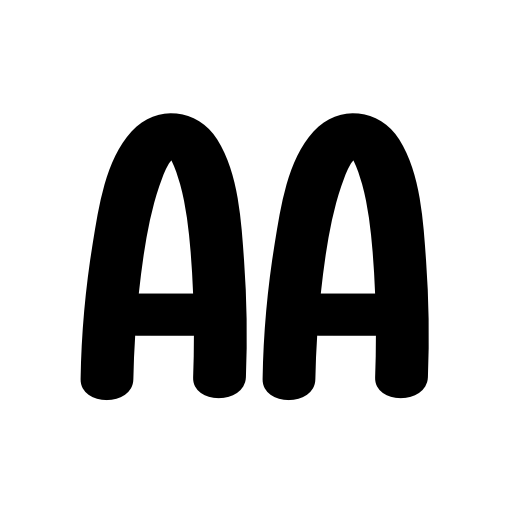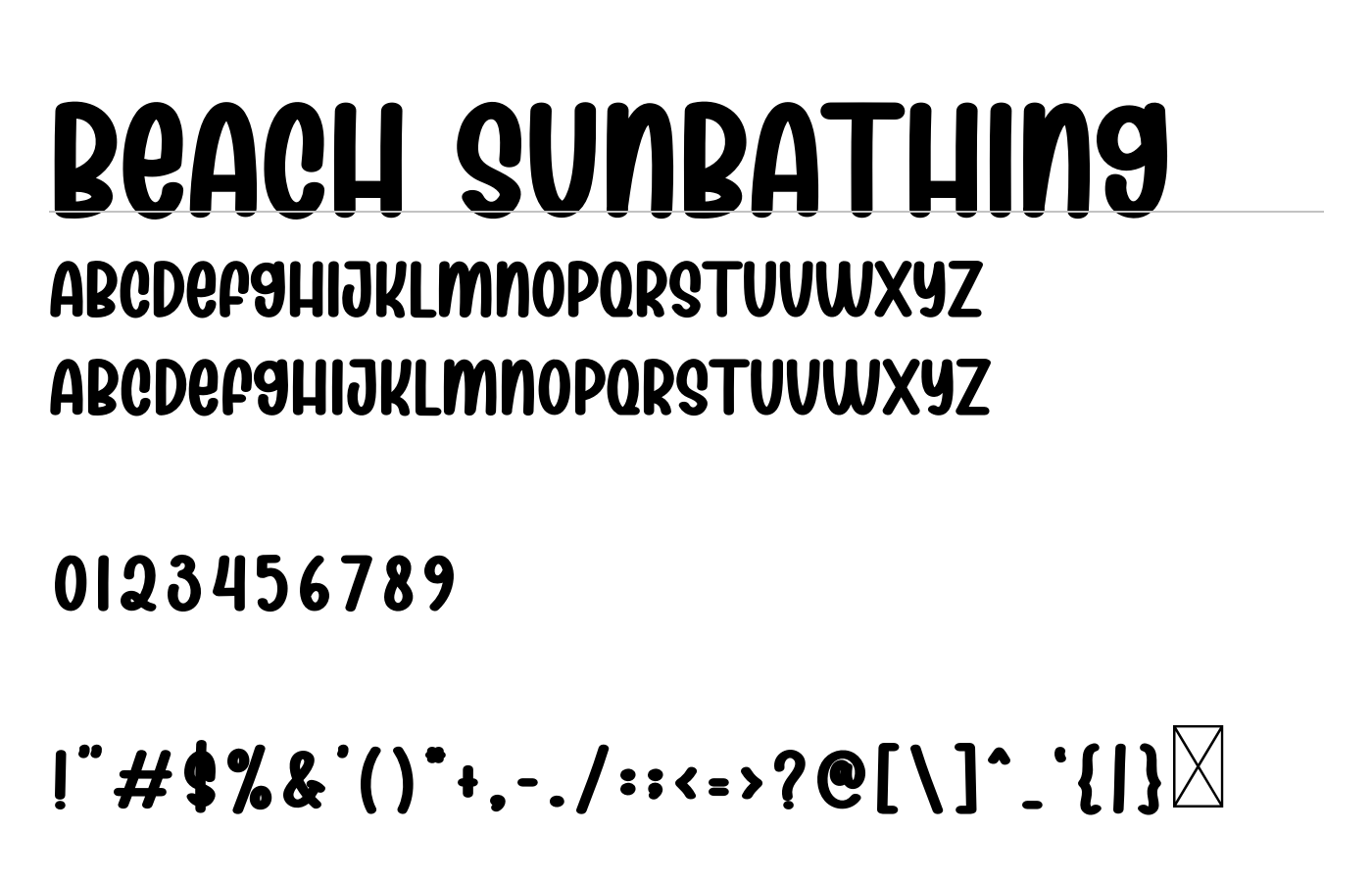
Beach Sunbathing is a playful and rounded sans serif font with a friendly, hand-lettered feel. Its bold, slightly condensed letterforms and casual curves make it perfect for fun, informal designs like posters, children’s books, or summer-themed branding. This font’s warm and approachable style adds a lively, cheerful personality that works well for headlines and logos aiming to convey joy and relaxation.
Beach Sunbathing Font